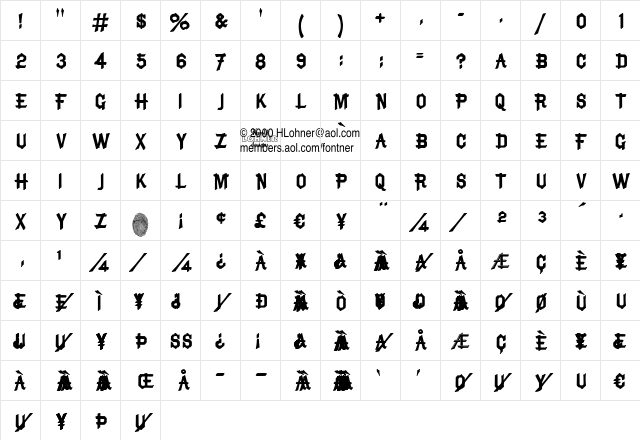
Bruce Mikita Two
Style: Two
Design Context for Bruce Mikita
Bruce Mikita is a composed and adaptable typeface that performs quietly and consistently across a wide range of design contexts.